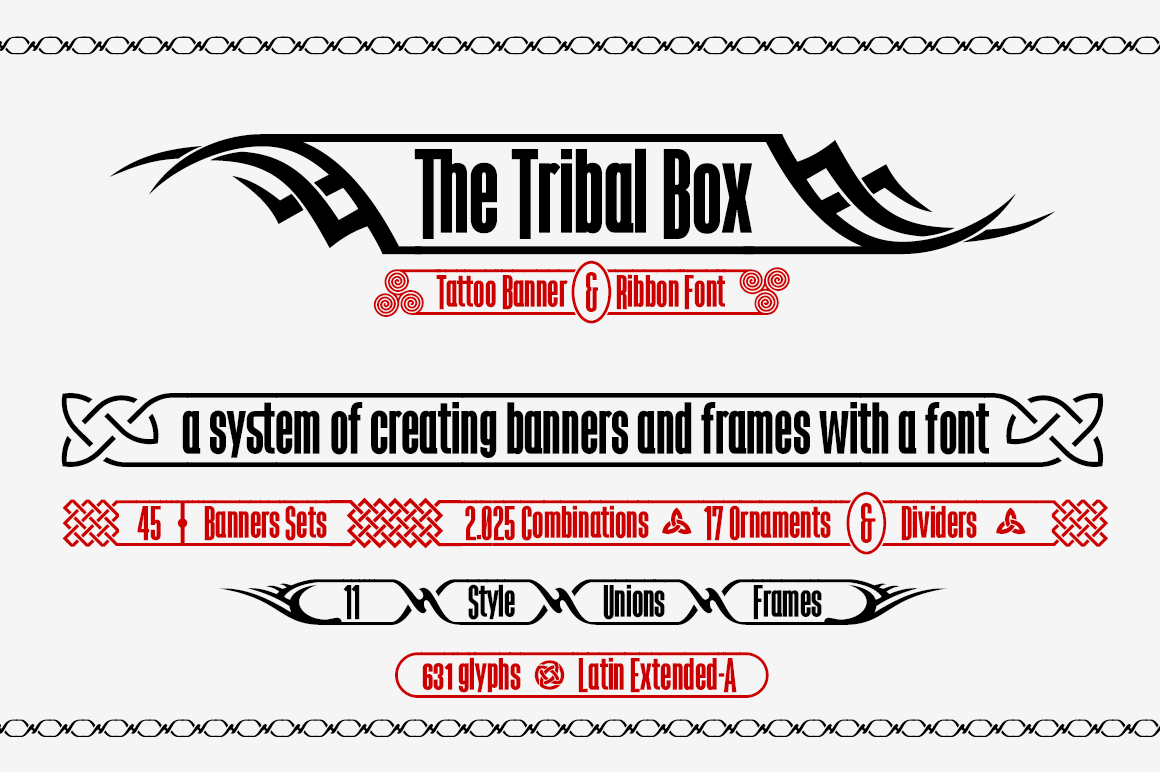
The Tribal Box -banner font-
The Tribal Box is a sans-serif condensed font surrounded by a frame that includes OpenType ligatures system for creating multiple banners and frames, tattoo style.
- 45 banners sets= 2.025 combinations.
- 17 ornamentes and dividers.
- 11 style unions for banners and frames.
- OpenType Functions: Inferiors, Superscript, Superiors, Initial Forms, Contextual Alternates, Fractions, All Alternates, Subscript, Denominators, Titling alternates, Localized Forms, Numbers Small Caps, Historical Ligatures, Historical Forms, Numerators, Ordinals, Standard Ligatures, Ornaments, Extended Fractions, Scientific Inferiors, Discretionary Ligatures, Slashed Zero.
- Use ligatures, Bitcoin symbol: (b#)
- Basic keys for ornaments and banners: () [ ] { } | ¬ _ • * ~ ´ ` ¨ ^